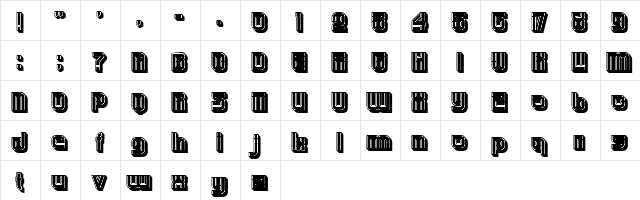
Hunk Filled Regular
Design Context for Hunk Filled Typeface
Hunk Filled is a composed and adaptable typeface that performs quietly and consistently across a wide range of design contexts.